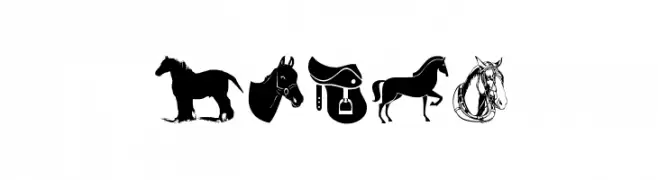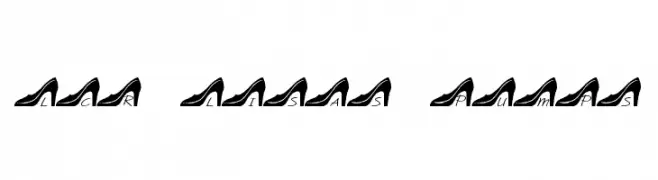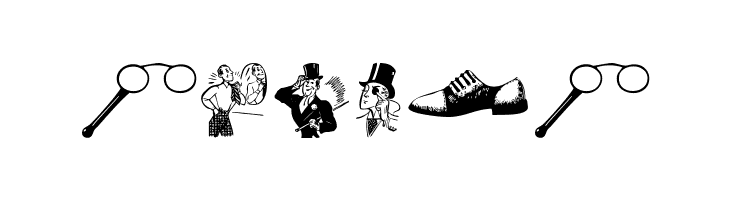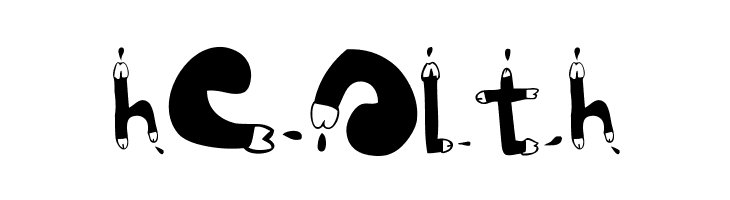
Hand-drawn, luck-themed icon font with detailed illustrations.
A display font made from high-heeled shoe silhouettes.
A whimsical collection of hand-drawn doodles featuring flowers, paisleys, and other decorative elements.
Decorative icon-based font with playful, outlined numerals.
Vintage gentleman-themed icon set with bold, high-contrast silhouettes.
A decorative horse-themed dingbat set with varied styles and motifs.
A playful, whimsical font with cartoonish elements and a hand-drawn style.
A whimsical collection of playful and enchanting dingbats featuring princess-themed symbols.
A stylish font featuring characters embedded in high-heeled shoe silhouettes.